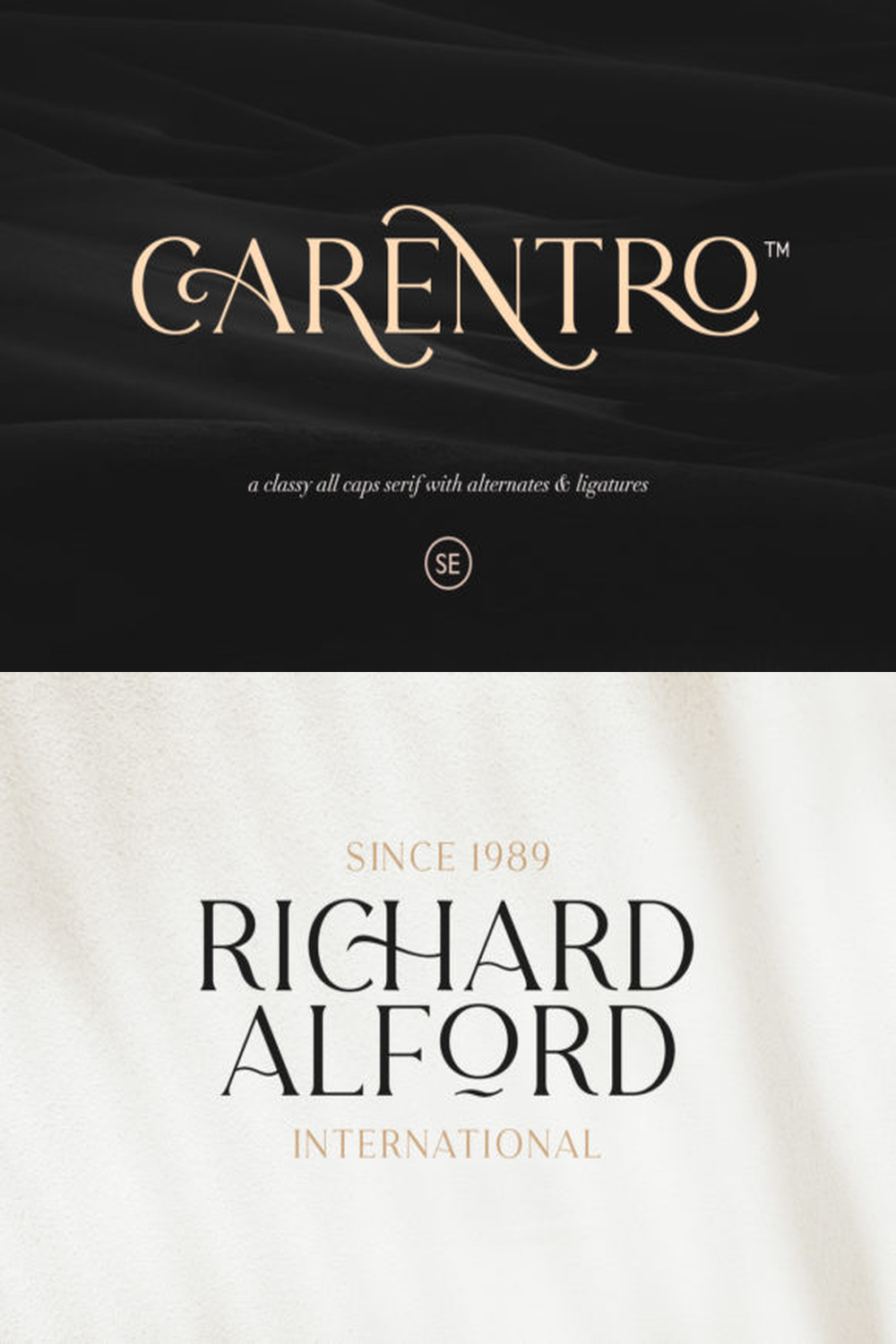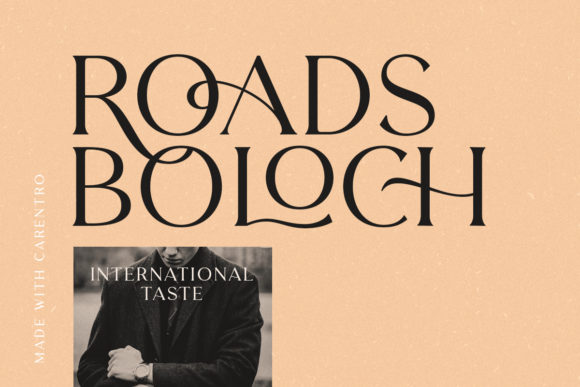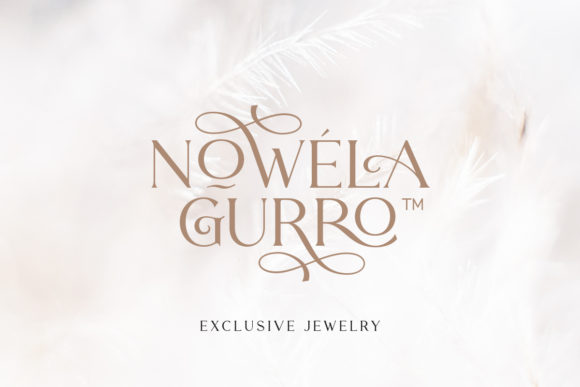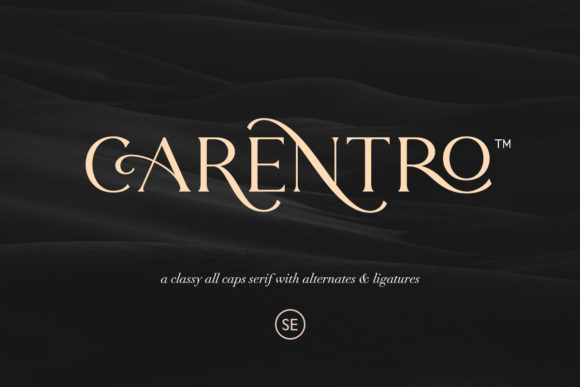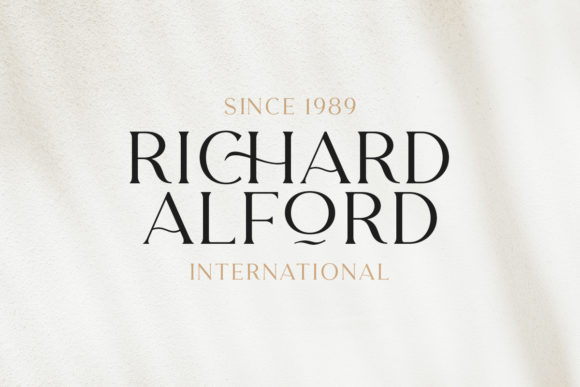
Carentro Font: Elegant Serif Typography for Modern Logo Design
About the Carentro Font
Make a bold statement with Carentro Font, a powerful and memorable font. Carentro is an elegant serif font, that fits a wide variety of design ideas. Fall in love with its incredibly versatile style and use it to create spectacular designs!
Carentro Font Usage Examples